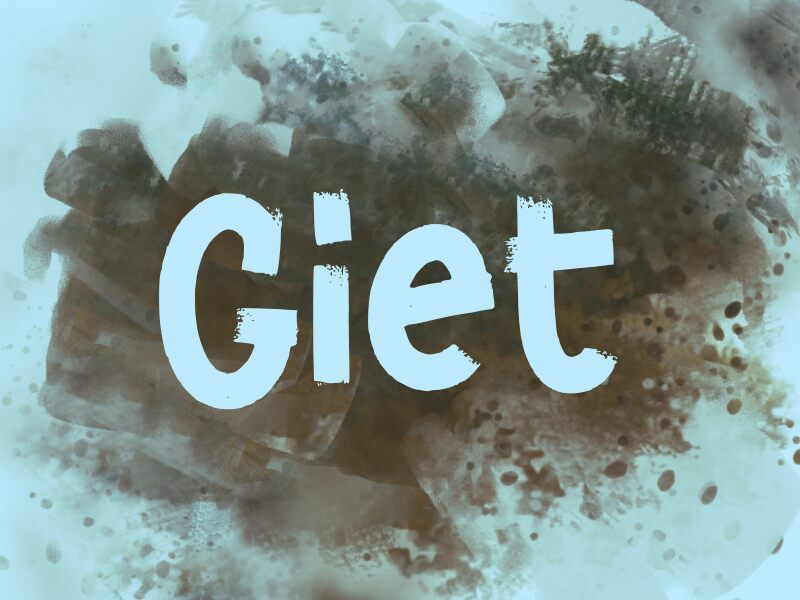
Giet
Giet, designed by wep, stands out with its distinctive handwritten style. Bold and expressive, this font features a textured appearance that mimics the energetic strokes of a brush. The letters are playfully irregular yet harmoniously cohesive, making Giet perfect for projects requiring a personal touch.
This eye-catching font excels in adding character to branding materials, poster designs, and creative digital content where an authentic and dynamic look is essential. Its unique charm makes it versatile for both casual and edgy themes, ensuring your text resonates with visual impact and style.